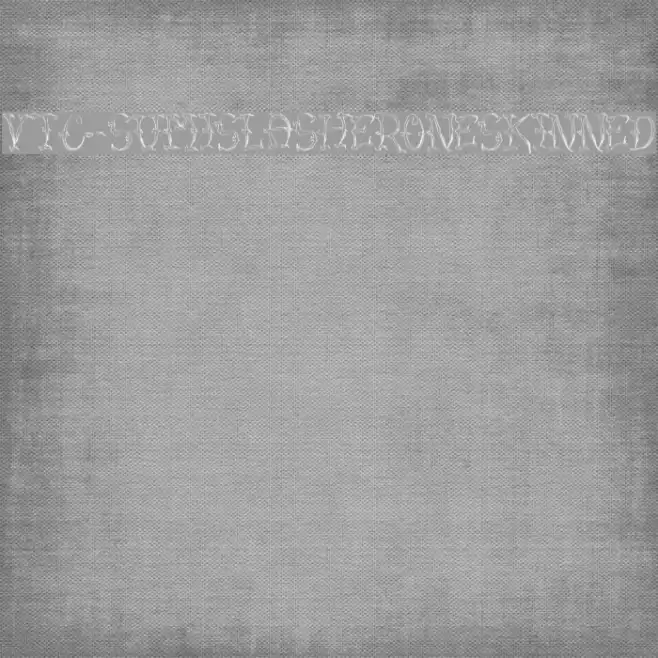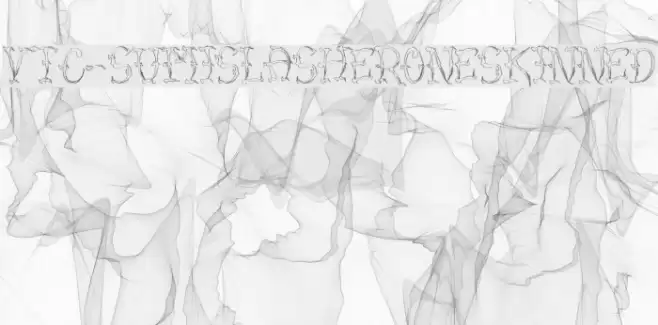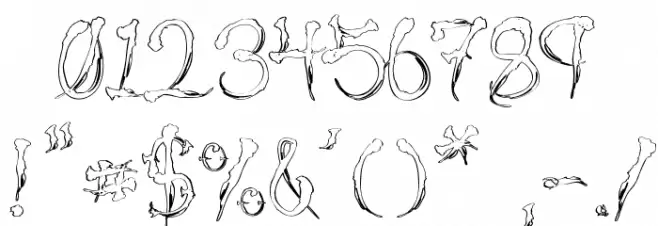
VTC-SumiSlasherOneSkinned Font
VTC-SumiSlasherOneSkinned Description
This font features a highly decorative and artistic style, characterized by intricate, swirling lines and sharp, pointed edges. Each letter appears to be crafted with a sense of movement and fluidity, resembling organic forms or vines. The design is bold and eye-catching, with a unique blend of elegance and edginess. The uppercase and lowercase letters maintain a consistent style, while the numerals and special characters are equally ornate, adding to the overall cohesive appearance. This font is ideal for projects that require a dramatic and artistic flair.
A decorative and artistic font with intricate, swirling lines and sharp edges from Uncategorized fonts.